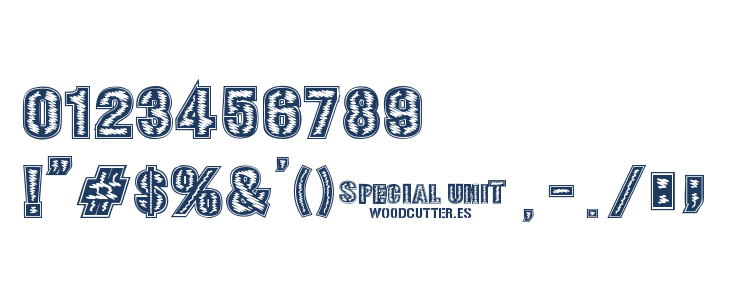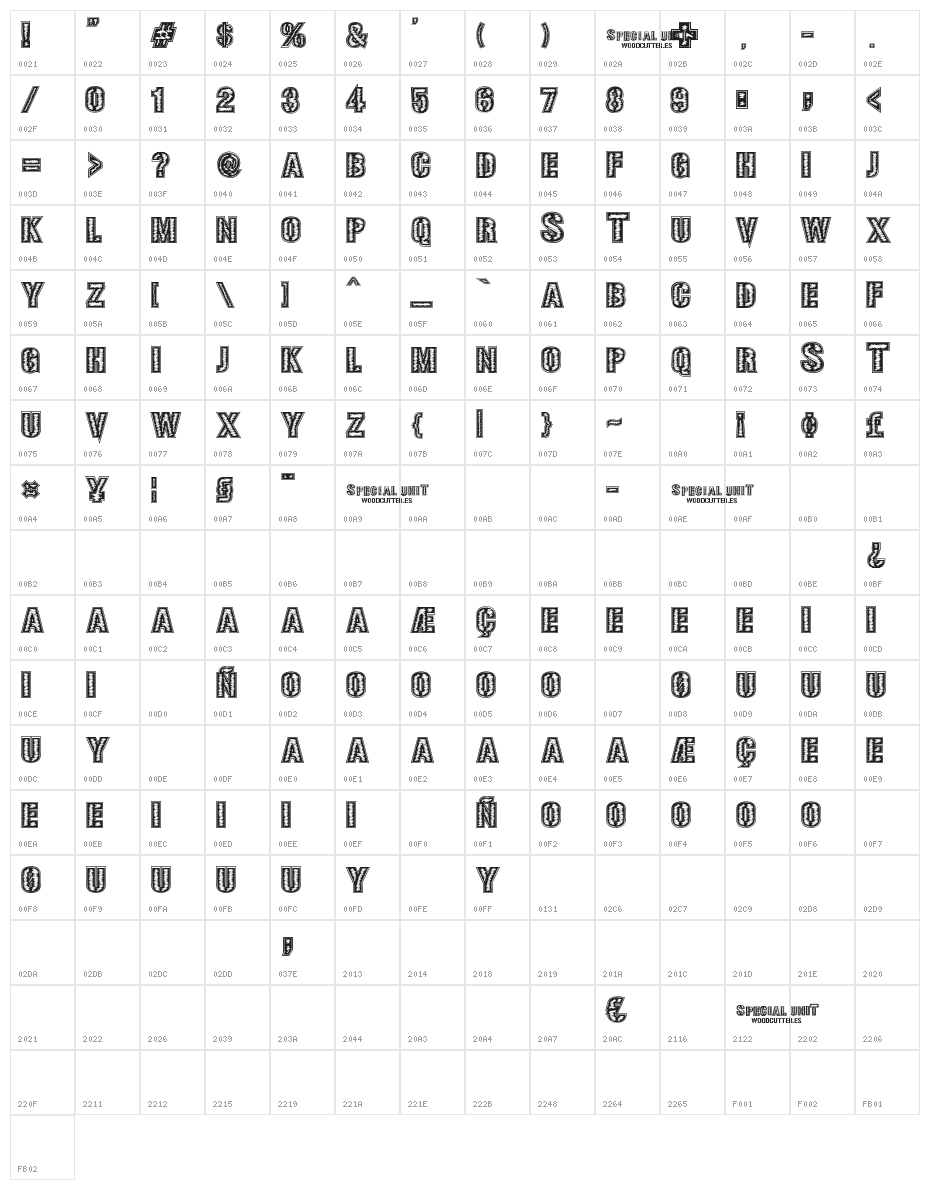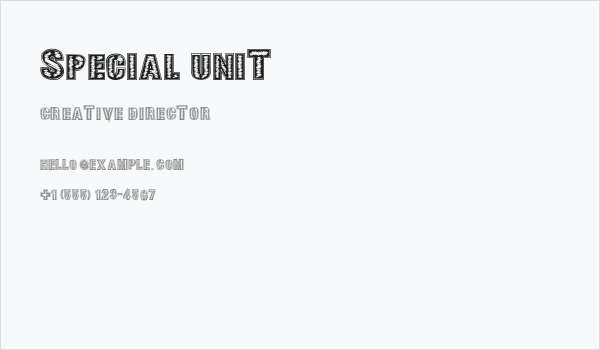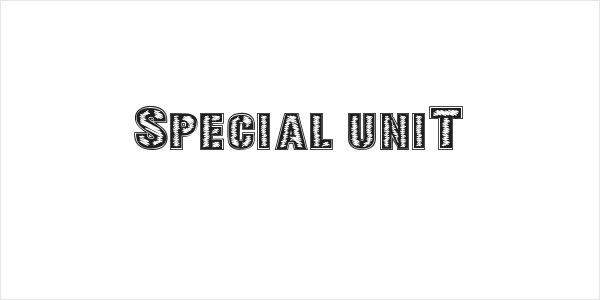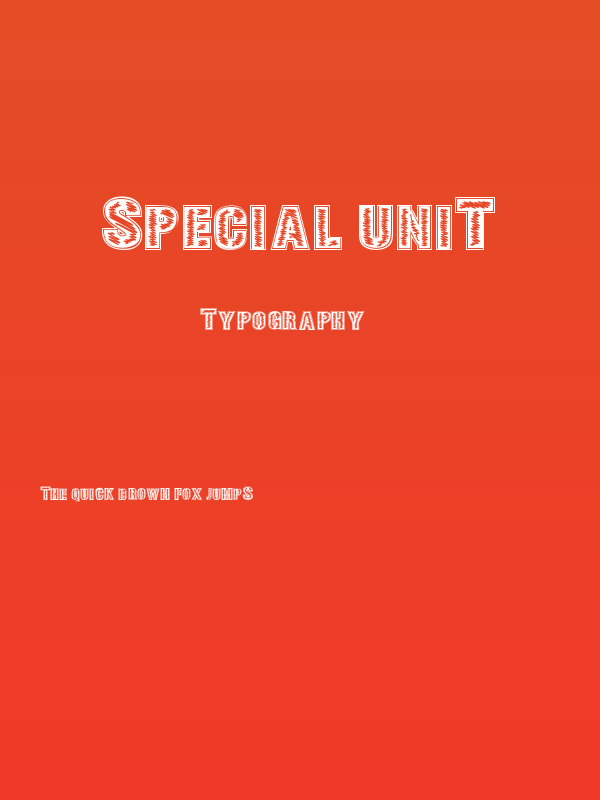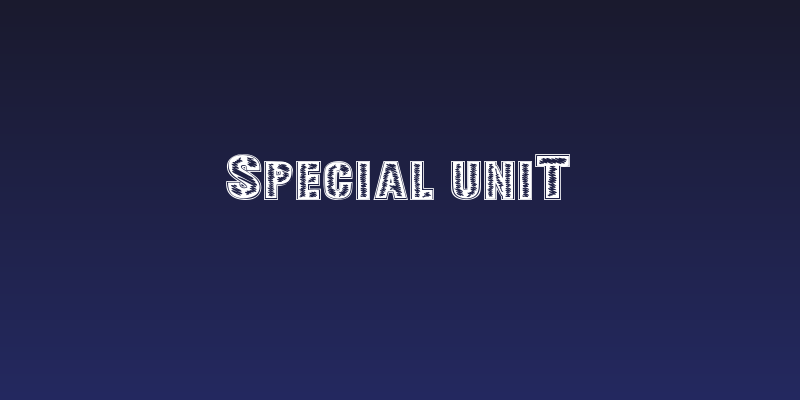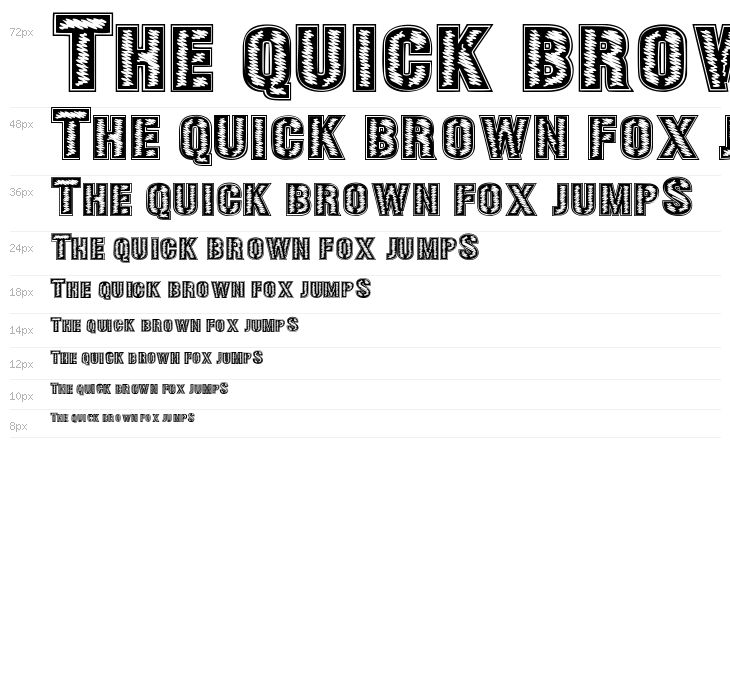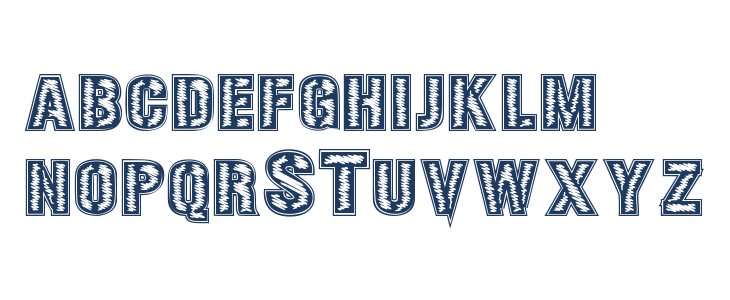
SPECIAL UNIT Font
SPECIAL UNIT Description
This font features a bold, decorative style with a unique textured pattern inside each character, reminiscent of a woodcut or engraved design. The uppercase and lowercase letters maintain a consistent height and width, creating a uniform appearance. The numbers and special characters follow the same stylistic approach, ensuring cohesion across all elements. The font's distinct style makes it ideal for attention-grabbing projects where a strong visual impact is desired.
Proposed ProjectsIdeal for posters, logos, headlines, and any design requiring a strong, artistic flair.